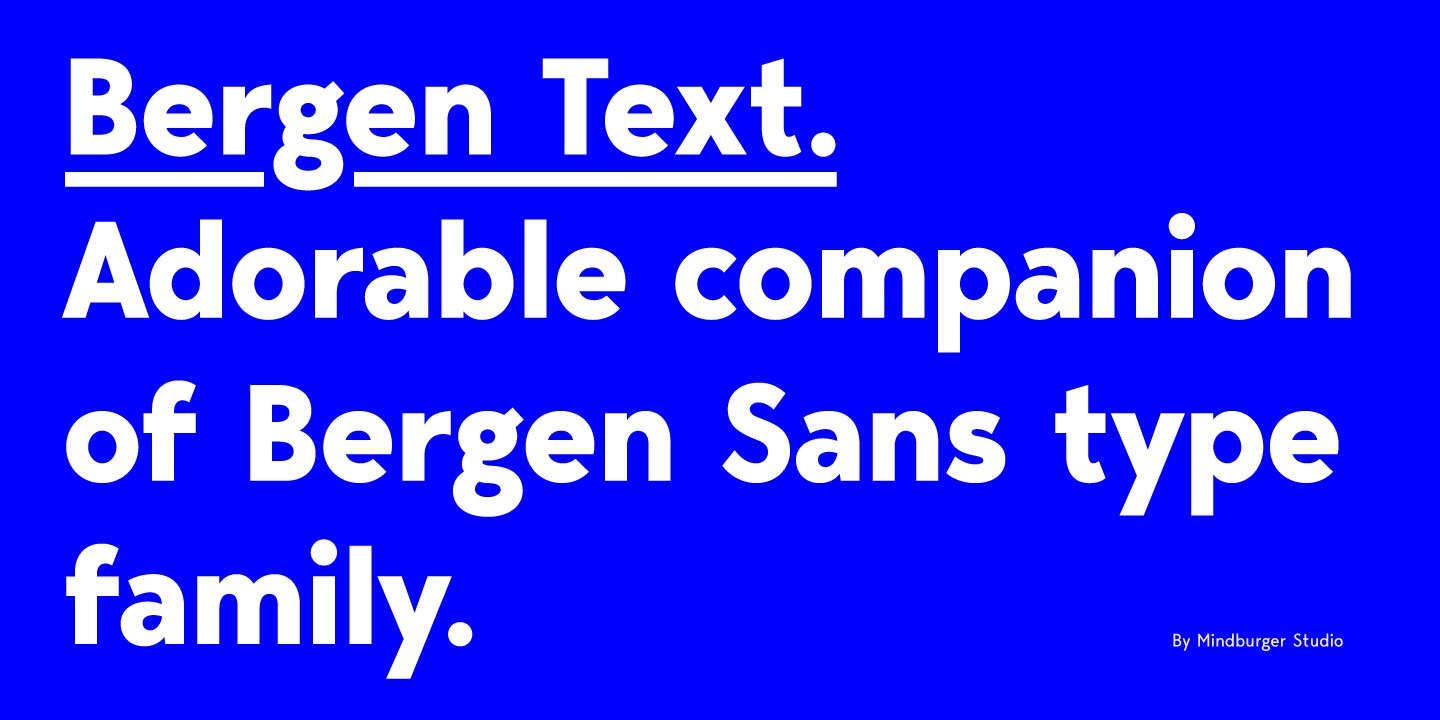
Bergen Text Font
Bergen Text Font is perfect for Norwegian publications, Scandinavian design projects, Nordic corporate communications, academic journals, literary magazines, educational materials, cultural institutions, Norwegian tourism marketing, fjord-inspired branding, and authentic Norwegian heritage communications.
What makes Bergen Text Font exciting is its Nordic clarity that embodies the pristine beauty of Norwegian landscapes and Scandinavian design philosophy through precisely crafted letterforms. This distinguished typeface combines fjord-inspired elegance with functional readability, creating a personality that communicates clarity, heritage, and genuine Norwegian sophistication. The font's Bergen-inspired character and Nordic appeal make it perfect for educational institutions, cultural organizations, and Norwegian brands seeking to honor the magnificent heritage of Norway's cultural capital and fjord regions.
The Bergen Text Font family includes Regular, Bold, Light, Medium, Nordic, Classic, Condensed, and Heritage variants. Each weight maintains the font's Norwegian character while providing comprehensive typographic flexibility for Scandinavian brand identity systems and Nordic design applications across diverse cultural platforms.
Whether you're developing Norwegian cultural identities, creating Nordic marketing materials, designing educational publications, or building Scandinavian heritage campaigns, Bergen Text Font delivers unmatched Norwegian appeal and Nordic sophistication. Its clear presence makes it perfect for Norwegian universities, cultural institutions, Nordic design firms, and Scandinavian organizations seeking authentic Bergen representation.
The font's clean proportions and Nordic details ensure optimal performance across lengthy texts while maintaining excellent readability that honors Norwegian typographic tradition. Each letterform has been carefully crafted to preserve Scandinavian design principles while providing the functionality needed for modern Norwegian educational and cultural applications.
This versatile typeface excels in academic environments, offering designers the clarity needed for comprehensive Norwegian brand communication strategies. The extensive character set includes Nordic alternates, Norwegian ligatures, and Scandinavian symbols for cultural market positioning and Bergen brand storytelling.
Embrace the power of Nordic design that celebrates Norwegian culture and authentic Scandinavian educational excellence.